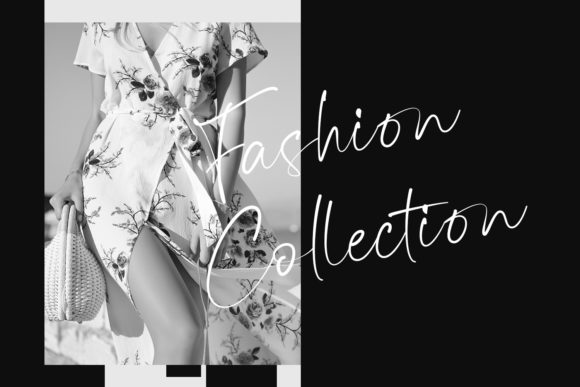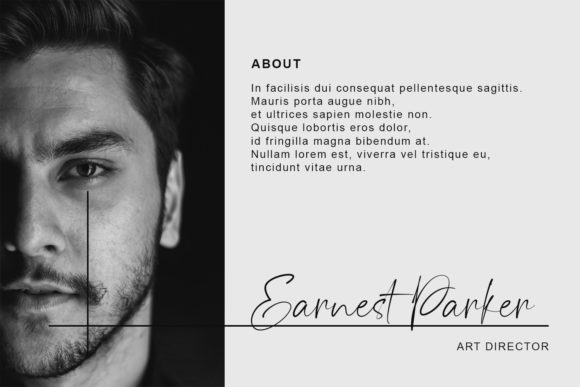
Magis Authentic Font
db-ku.com - Script & Handwritten -- Magis Authentic is a thin and elegant handwritten font. Magis Authentic is perfect for many different project such as logos & branding, invitation, stationery, wedding designs, social media posts, advertisements, product packaging, product designs, label, photography, watermark, special events or anything else you can think of.